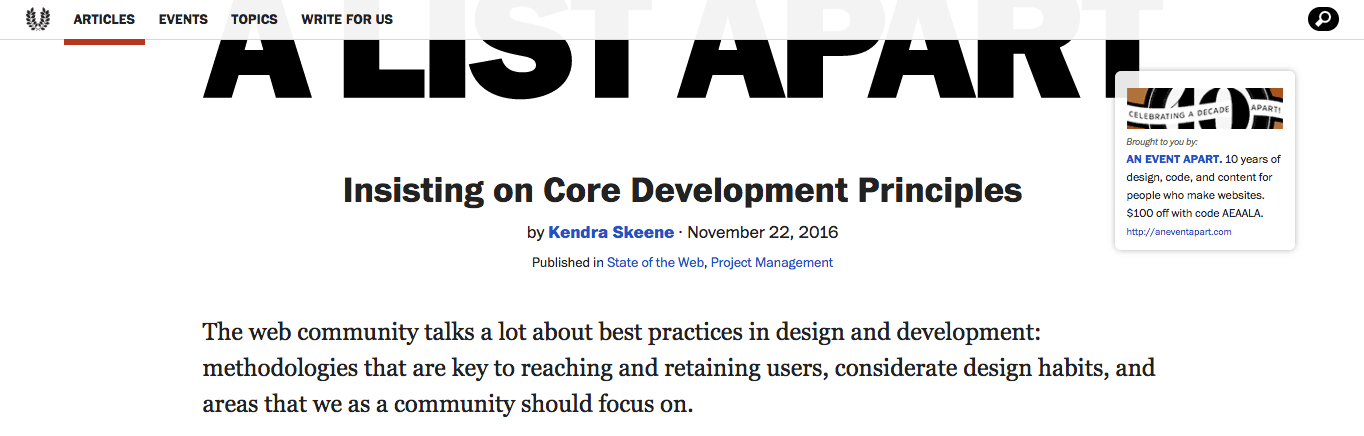
Choosing fonts can be a headache if you’re not great at pairing combinations. Here are our go-to resources as well as some handy tips.
If there were such a thing as the Web Developer’s Dictionary, you’d probably find the word typography defined as “The bane of your existence.” It seems silly really. How could something as small and seemingly innocent as a font cause so much turmoil in web design?
Font choices, like everything else in web design, have a significant impact on the overall reception of a website. Tone. Balance. Flow. These are just some of the ways a poor font choice can have a negative effect on your website and throw everything else into disarray.
If you’re tired of relying on default font choices from WordPress themes and want to more effectively design with typography, read on for tips and tools that will enable you to do this.
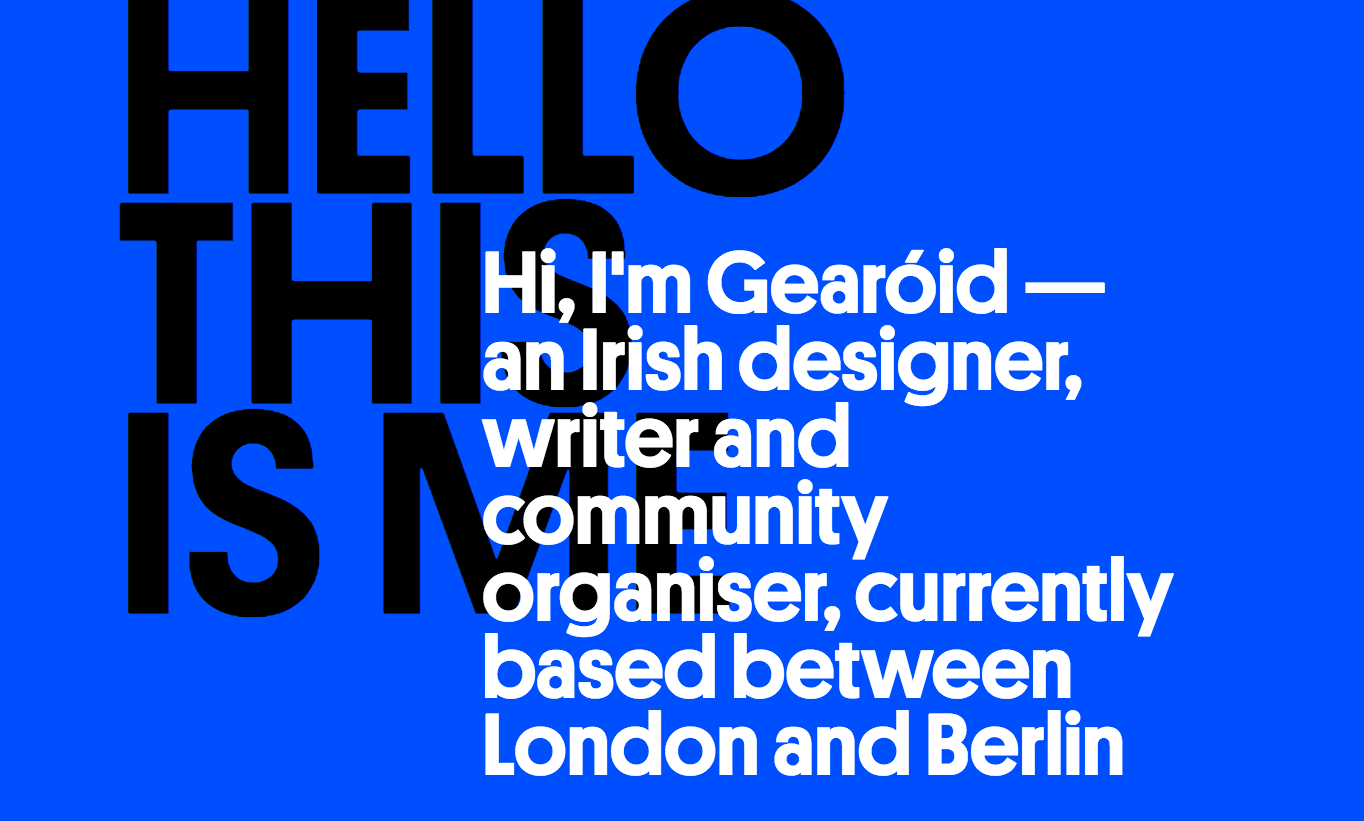
Your Guide to More Effectively Using Fonts in Web Design
Let’s start by addressing the obvious: there are way too many fonts out there. It seems like it would be more efficient to just use one of the default system fonts, right? While it would definitely be easier, it most likely would not be more effective – and I’ll explain why.
The words written on a website are the (digital) voice of a company or person.
- Rely on a font that looks like everyone else’s and your site will get lost in the shuffle.
- Use a default font without giving it a second thought and people will see through it.
- Pick the wrong color and the relevant and insightful messaging may be too difficult to read.
- Choose a font that implies a fun-loving, carefree lifestyle and people might not take your buttoned-up business seriously.
There is a lot at stake in the font choices you make. And because there are thousands of typography options to sift through, it’s easy to feel overwhelmed. Let me assure you, though, once you understand your website’s message, you’ll better be able to answer a number of key questions that will narrow down those choices.
Before you begin shaping and reinforcing your website’s digital identity through the use of typography, keep in mind that this isn’t about finding a single font to use site-wide. As you review the following tips and tools, consider the different types of text – and purposes – that you’ll employ throughout your website, like:
As you can see, the choices you make in typography have far-reaching effects, so it’s important to take this one at a time. Are you ready?
Tips for Narrowing Down Font Choices
Each of the following tips will provide you with guidance on making better, more effective choices in typography.
Tip 1: Co-mingle Your Fonts
When using different fonts on your website, think about how they’ll work together. While too much contrast may not work, you do want a little tension to make the differences between text types striking enough to gain attention. Consider pairing fonts that strike a balance. They should be compatible, but not matching. Striking, but not off-putting.Here are some of
Here are some of common pairing suggestions:
- Serif + sans serif
- Handwritten + script
- Thin font + heavy font
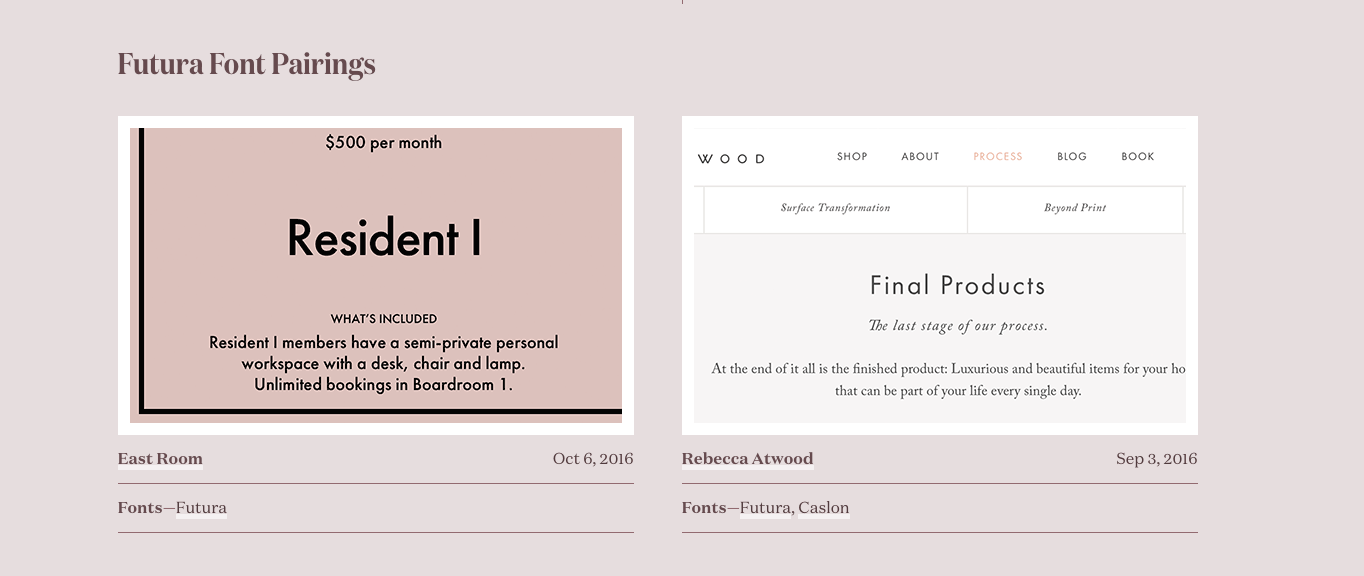
Typewolf is my go-to resource for font pairings and design inspiration. I could spend hours flicking through this site!
Tip 2: Don’t Overdo It
After going through this exercise, you may find that you’ve got a solid list of 10 or more fonts that will work well for your website. But remember that too much of anything, especially in web design, can end up being bad for the user experience.
Keep your ultimate font picks to a minimum. Choose two or three different fonts, and then rely on different stylings to lend variety to different text types around the site.
Tip 3: Match Your Style
Font choice, while important, is probably going to be one of the last ones you make in designing a website. Once you’ve created your site’s aesthetics via colors, images, and white space, you’ll need to find fonts that mirror that same styling.
If you’re not already in the habit of doing so, create a comprehensive, single-page style guide that lays out all your branding choices. This will help you better visualize what story your design choices tell about your brand’s personality, too.
Tip 4: Match Your Voice
Style and voice differ slightly when it comes to design. Style is about the overarching identity. This is why a law office would probably avoid using cursive fonts on their website. Voice, however, is more about the tone of your message.
Does your voice convey a straight-forward, no-nonsense tone? Or does it lend itself to bigger, bolder phrasing? Every font has a built-in tone, so you’ll need to make sure it matches your own.
Wrapping Up
So what’s the big lesson to take away from all this? There’s no need to feel intimidated by the thousands of fonts available online. By using best practices and the right tools, it’ll be a lot easier for you to find the perfect fonts and to use them in a way that will impress your visitors.